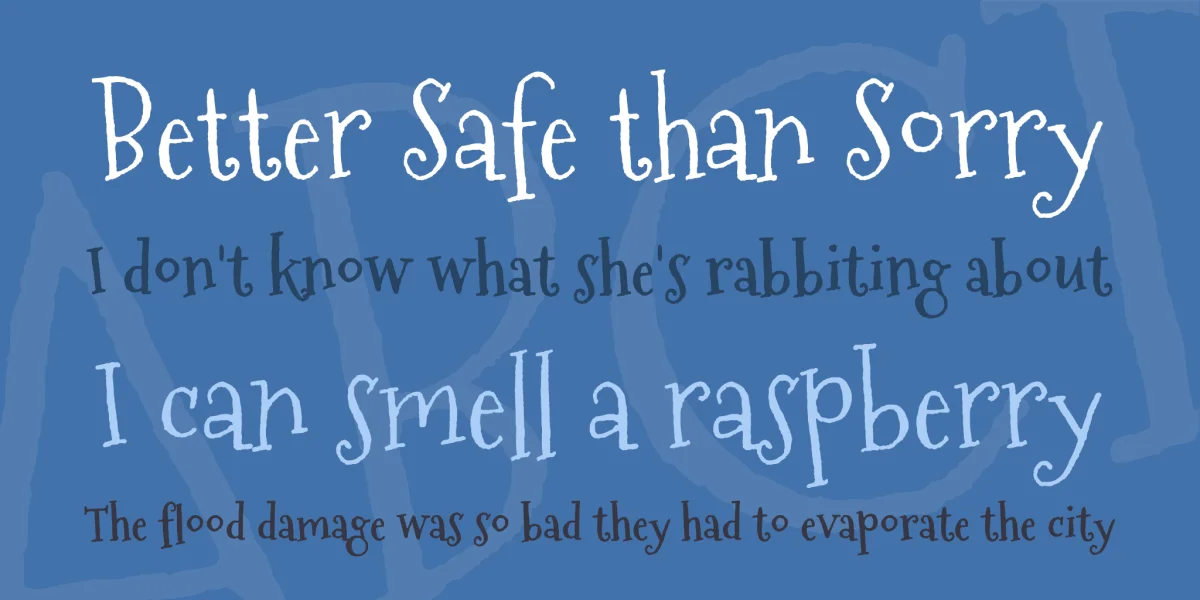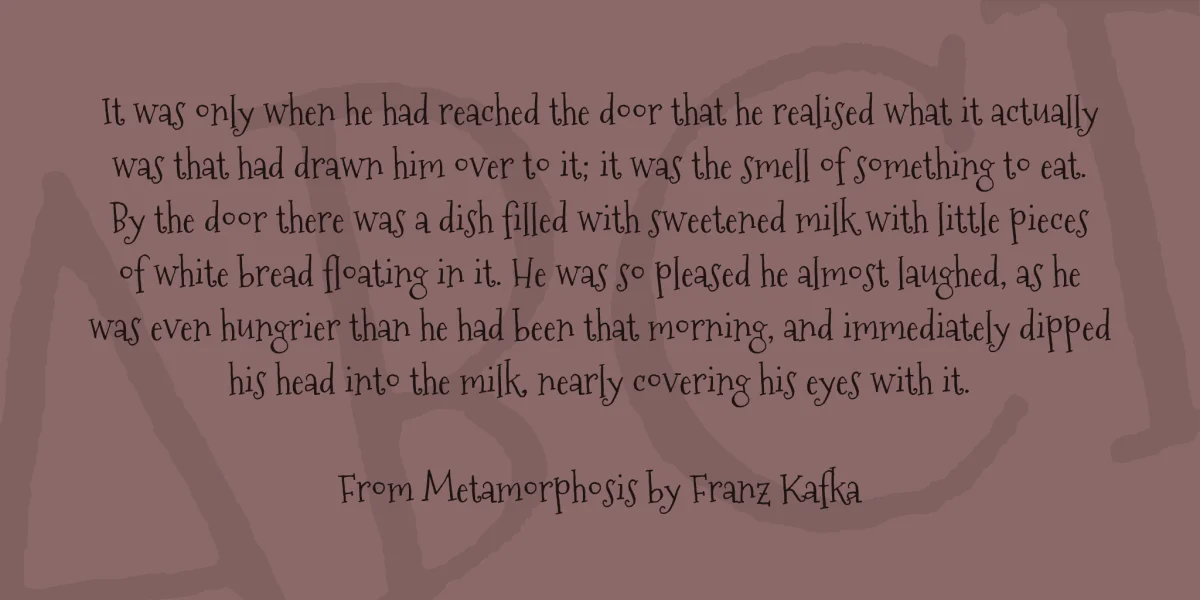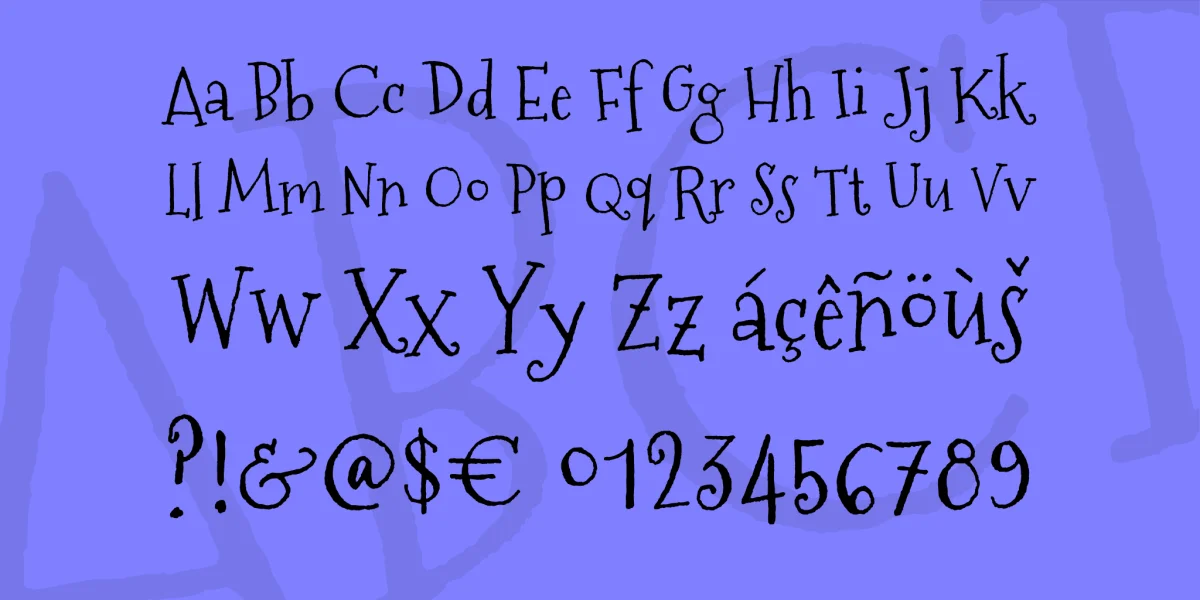
Ever wonder what font sugarplum fairies dream about? MountainsofChristmas by the talented lettering artist Crystal Kluge of the Tart Workshop font foundry! MountainsofChristmas is the perfect casual style playful serif font when you want to give your words a warm personal touch, and it's just plain fun! Enjoy MountainsofChristmas throughout the year and visit the Tart Workshop year round for more amazing fun and flirty handmade fonts and custom lettering!